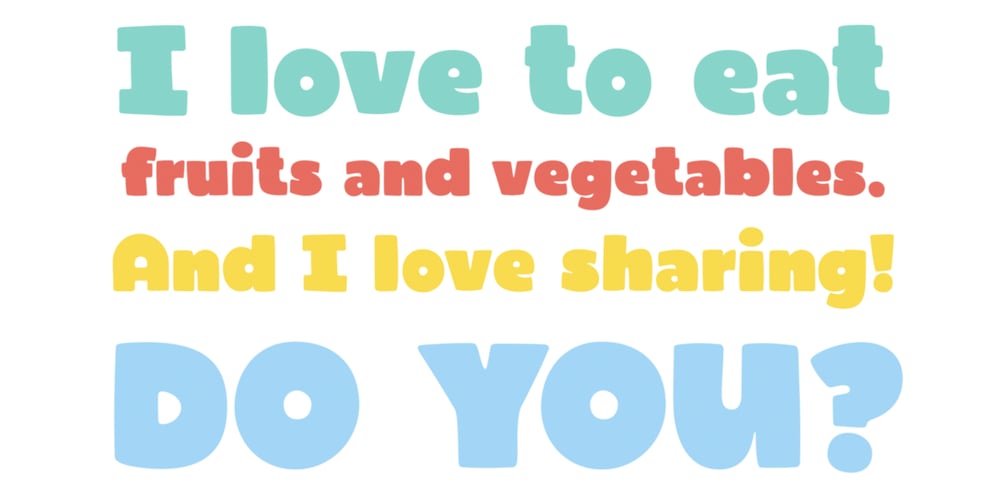
TOMO Acuario Font Family was designed by TOMO Fonts and published by TOMO Fonts. TOMO Acuario contains 1 styles and family package options. TOMO Acuario is a strong typeface with friendly forms. Very cool to speak to kids.